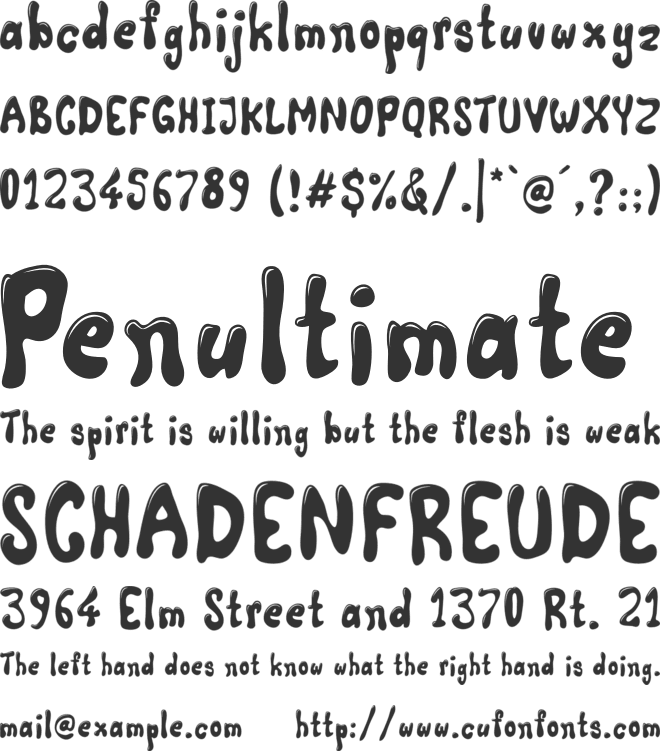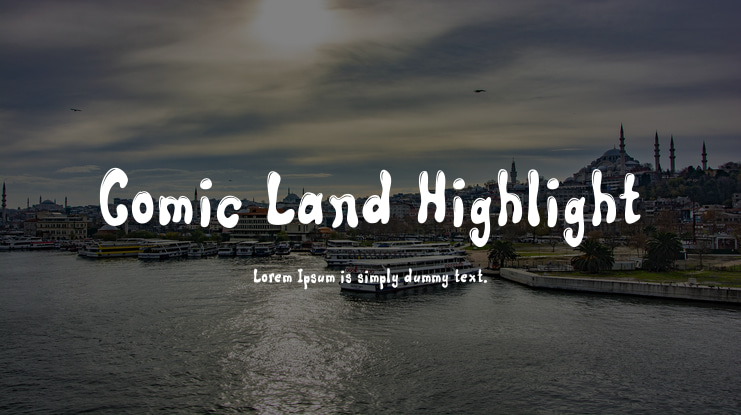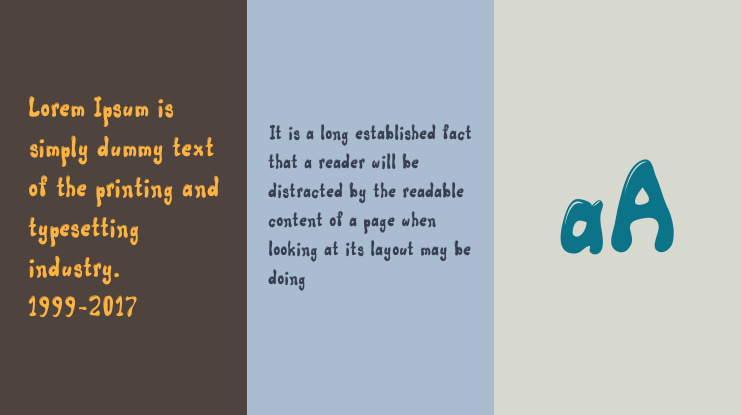
Comic Land Highlight Font Family
Say hello to "Comic Land"!, a new cute comic style typeface. It is nice for your fun title, subtitle, or long text.
This fun typeface available in two style, with highlight, and just fill version, make sure to place fill version at bottom layer. Highlight version more suitable for big size text.
Featured with 335 glyph, who support complete Latin, Eastern Europe, and Turkish language characters.